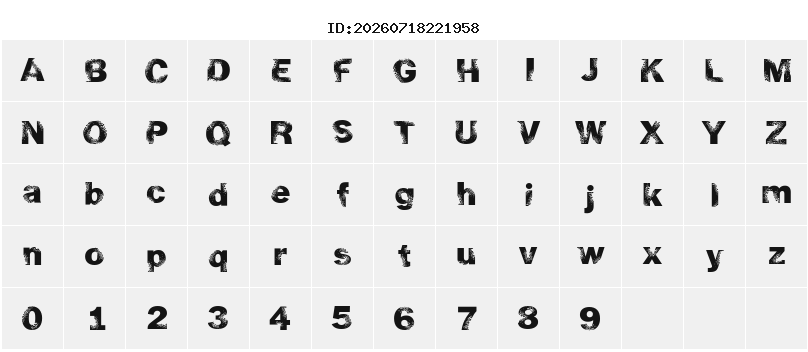
• Font Name: Corrode
• Full Font Name: Corrode
• PostScript Name: Corrode
About Corrode.ttf
Corrode.ttf is a modern, elegant sans-serif font designed for ultimate readability and visual harmony. Perfect for branding, headlines, web design, and print materials.